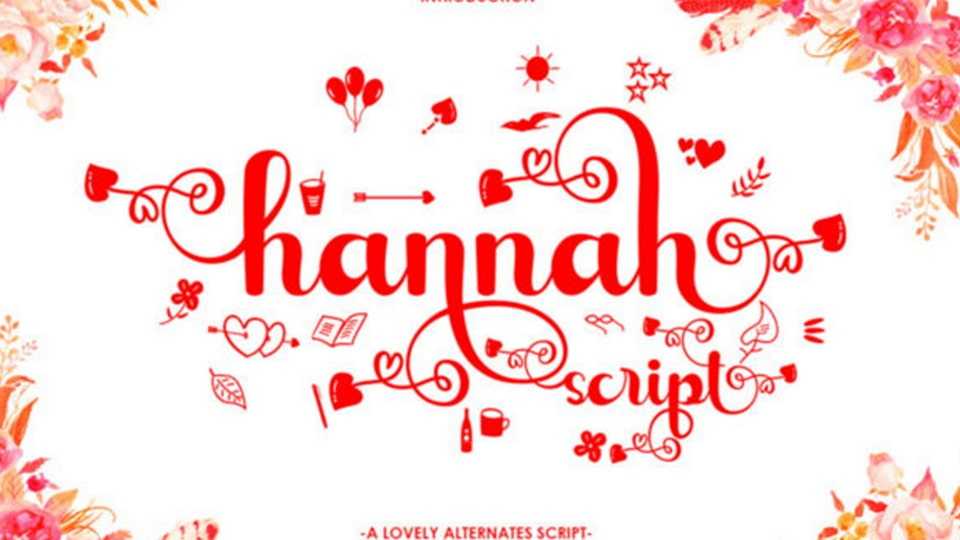
Download Hannah Script font, a beautiful handwritten typeface with a unique feel and a stunning impact. It will add a luxury spark to any design project that you wish to create!